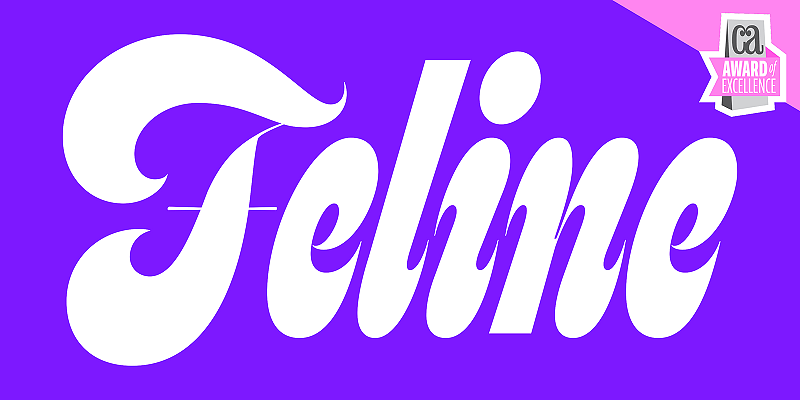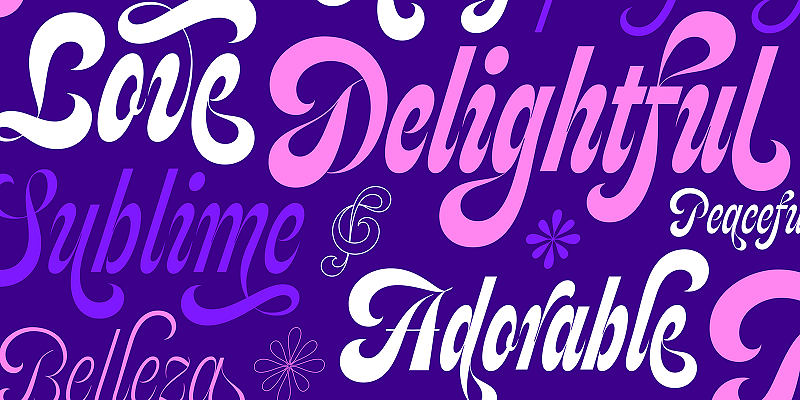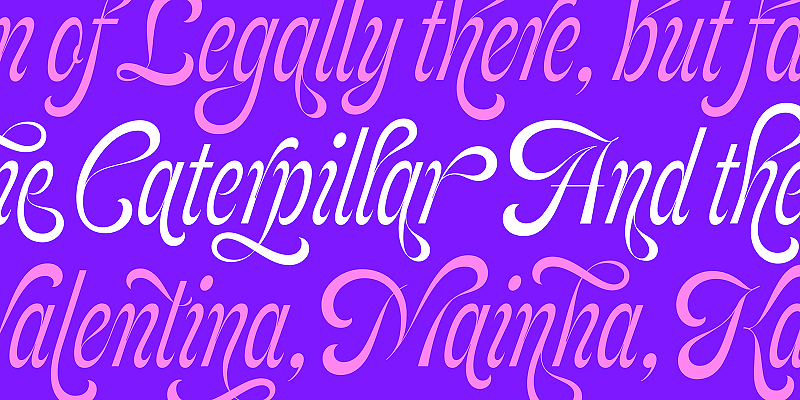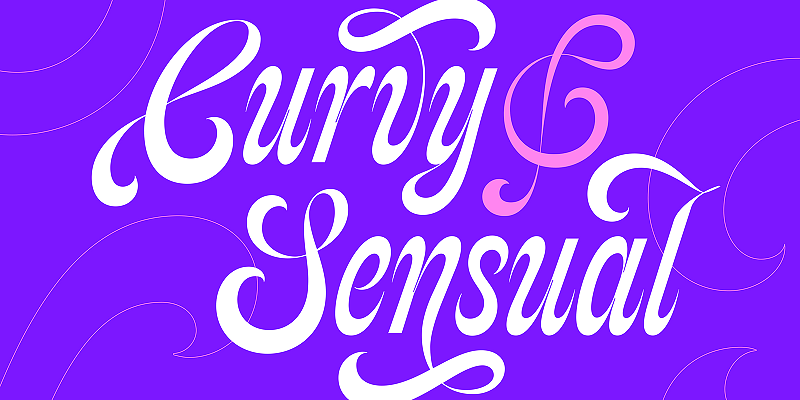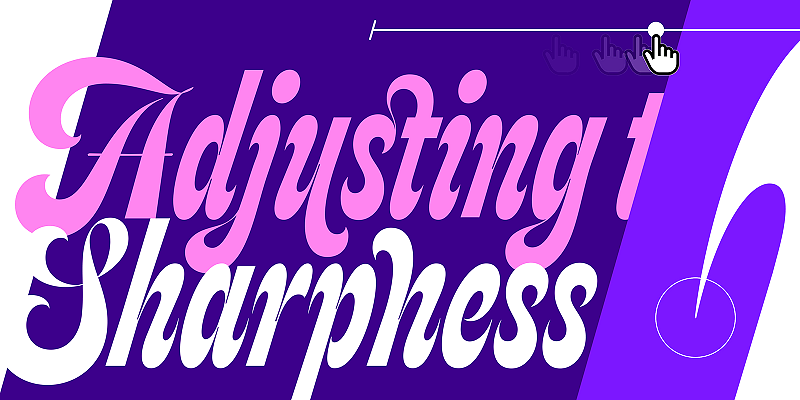
Feline is a sinuous script with exaggerated swashes and playful curves. Inspired by lettering spotted on a vintage pinball machine, it evolved into a liquid and groovy design evocative of other psychedelic 1960s scripts. The twist? The letters rarely connect! Its sculptural rhythm and expressive forms make it ideal for giving posters, magazines, packaging, and brands a voice as distinctive as its letterforms. Available in 6 weights, Thin to Extra Black, and 2 styles, Soft and Sharp, or as a 2-axes variable font.